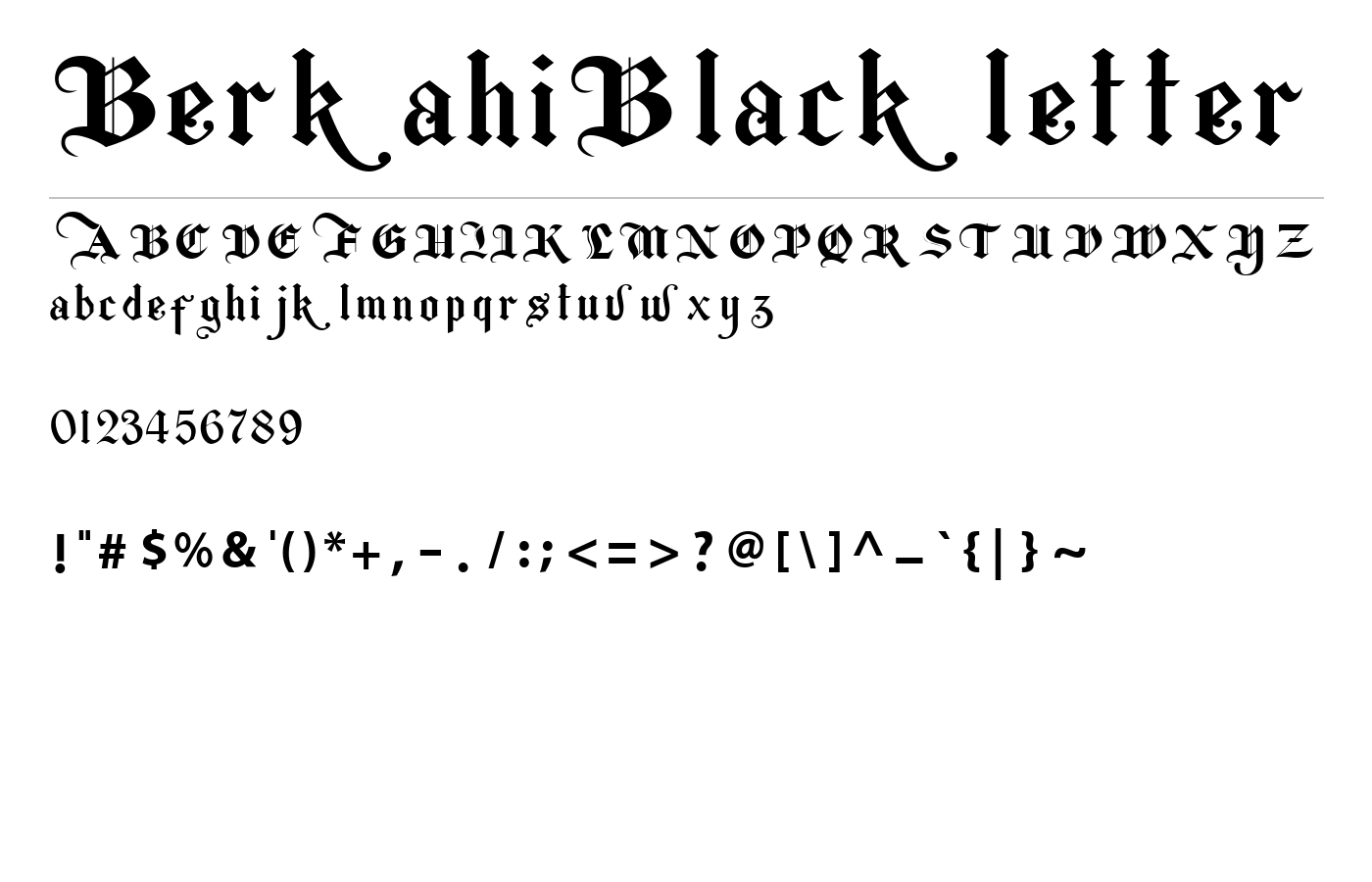
Berkahi Blackletter is a bold, traditional blackletter font featuring sharp, angular strokes and ornate, gothic-inspired letterforms that convey a historical and dramatic feel. Its high contrast between thick and thin lines, along with decorative swashes in certain letters, give it a strong, formal personality ideal for vintage branding, editorial headlines, or projects seeking a classic medieval aesthetic. This font works best in display uses where its detailed style can stand out, adding a touch of elegance and old-world charm.
Berkahi Blackletter Font
About Berkahi Blackletter Font